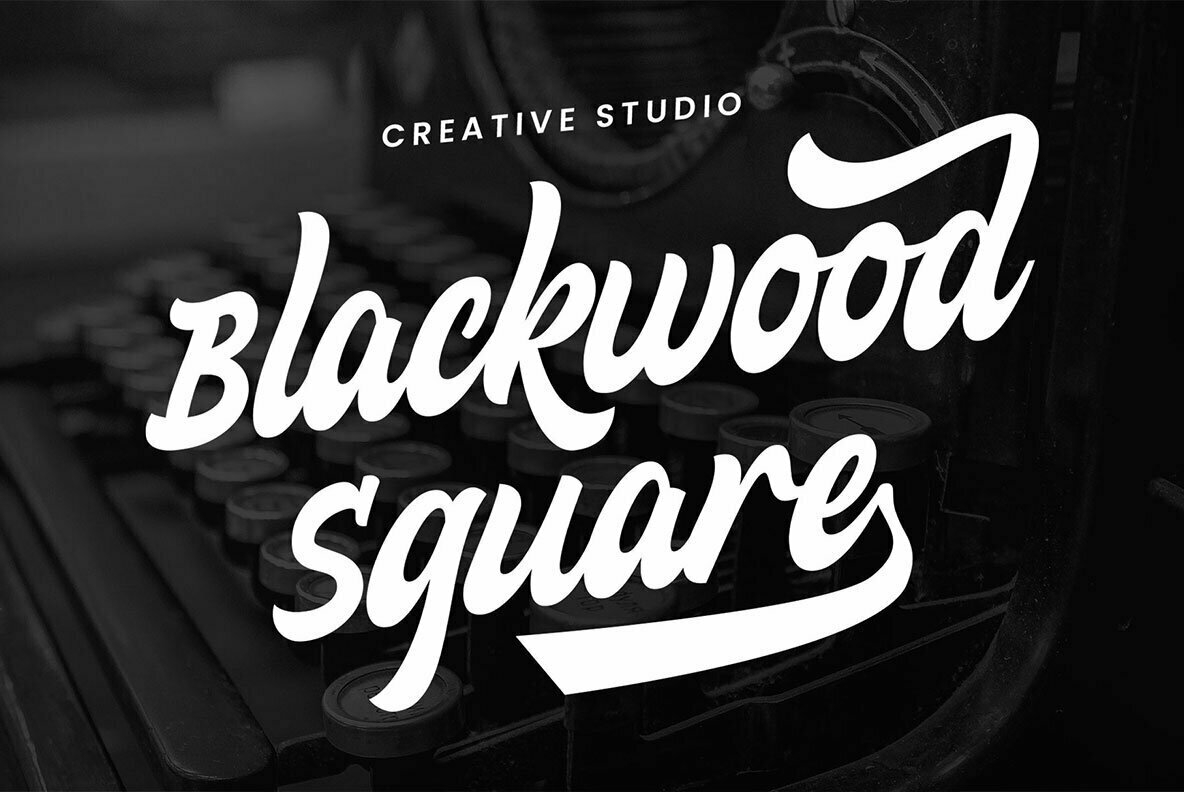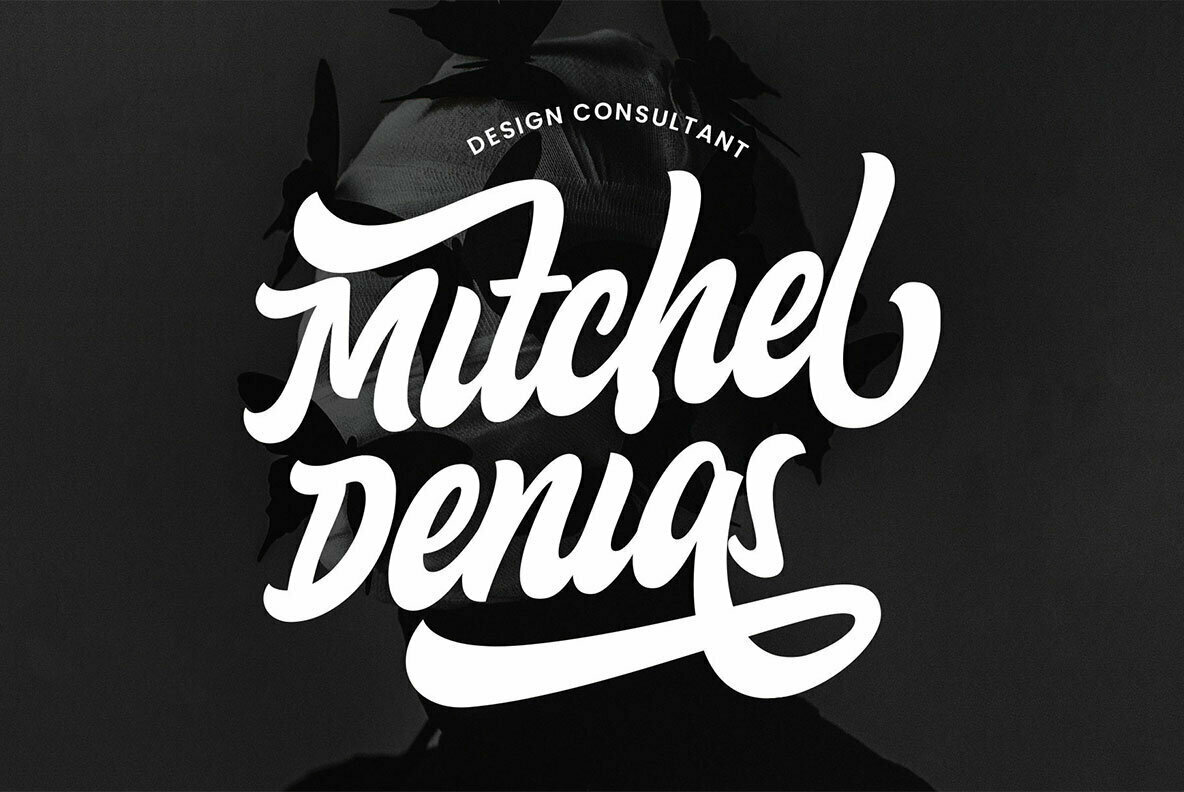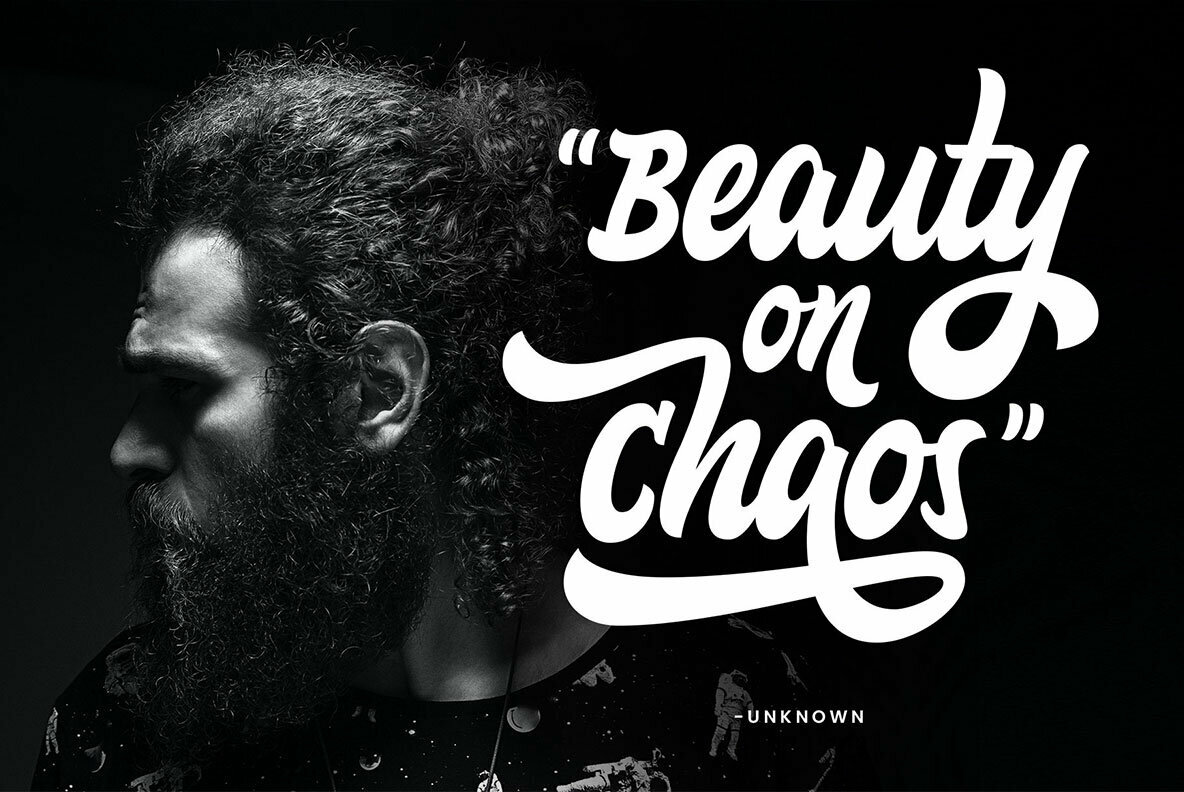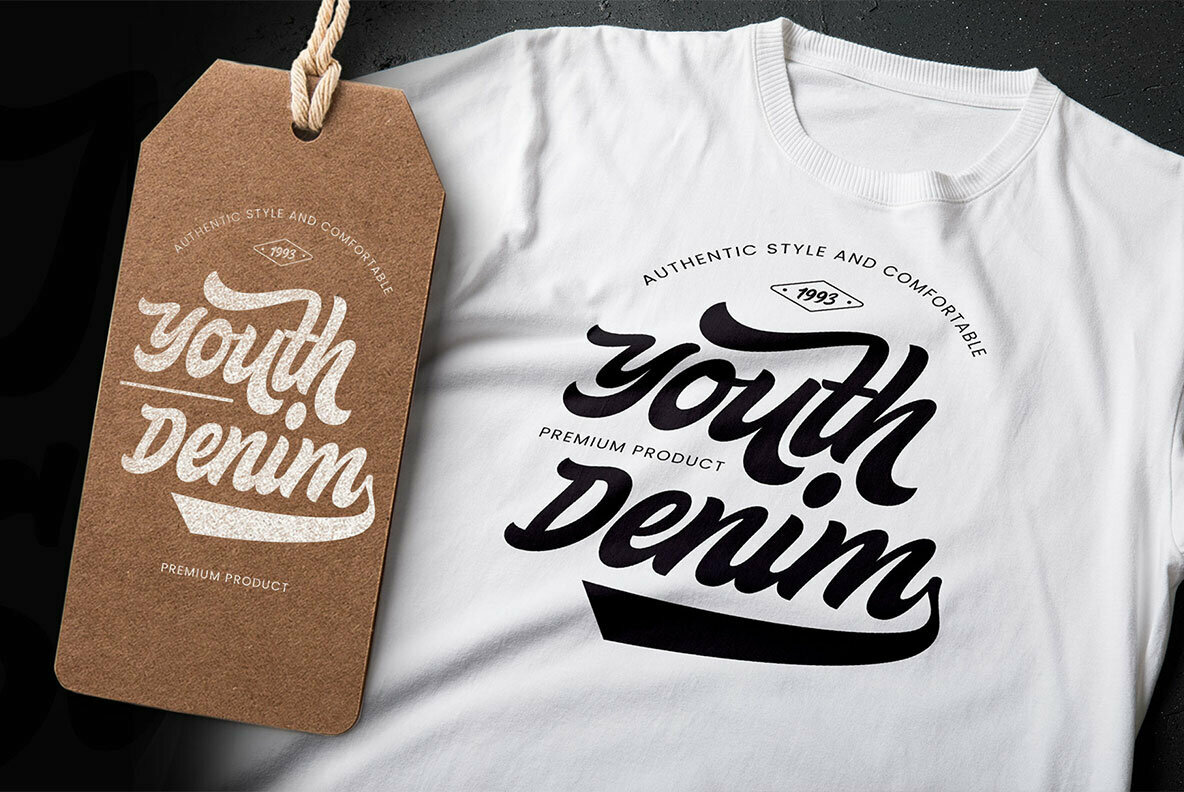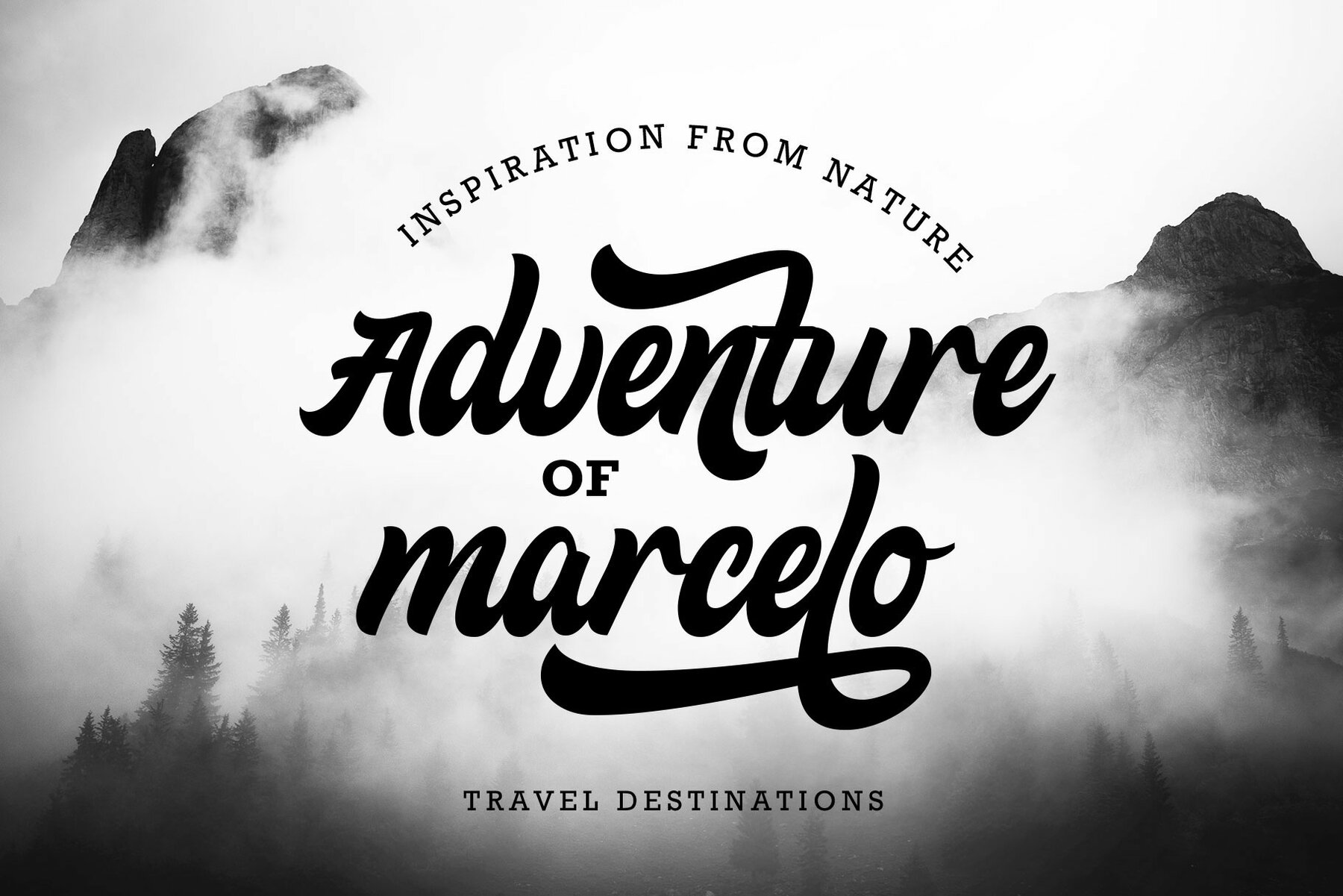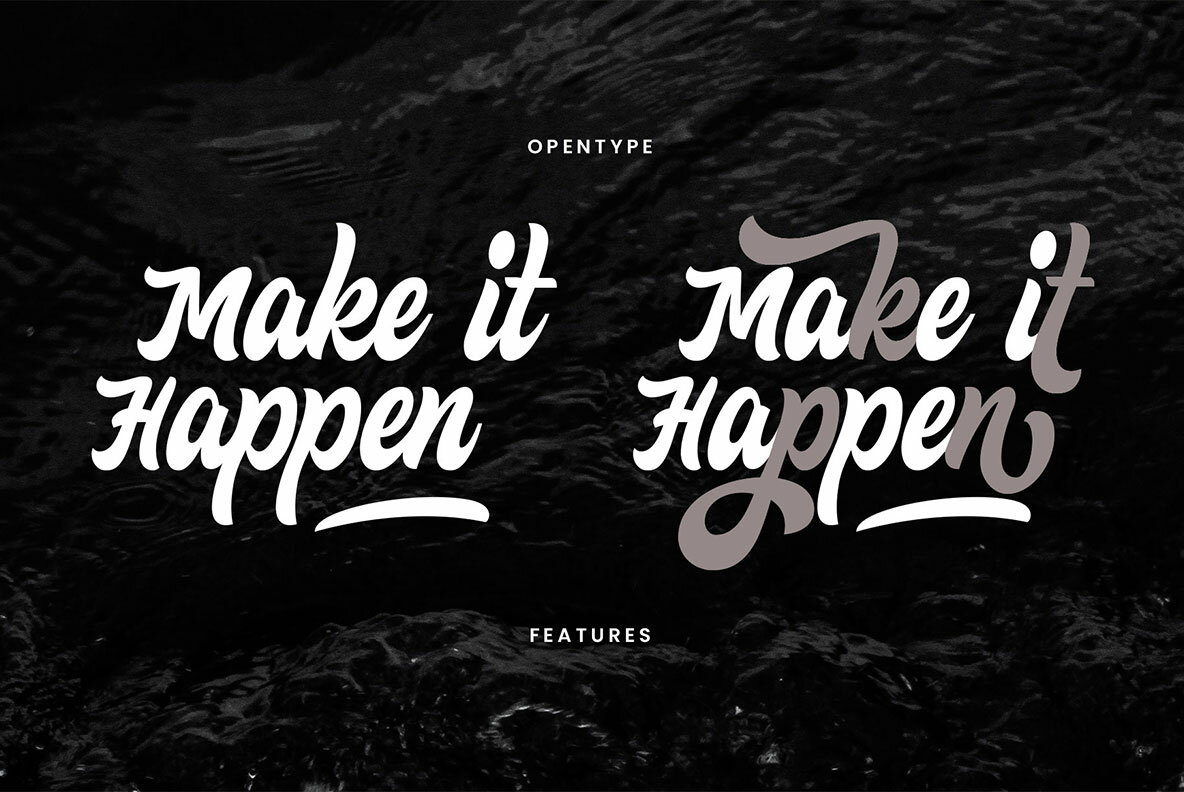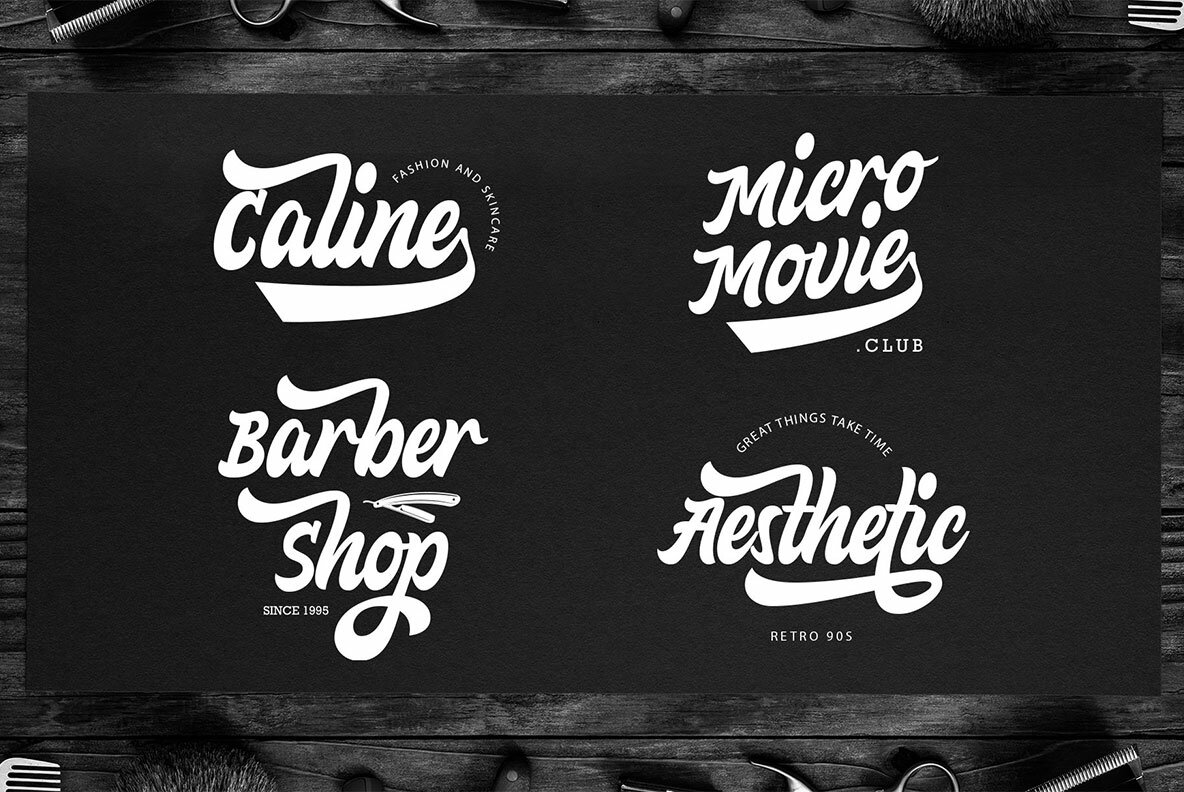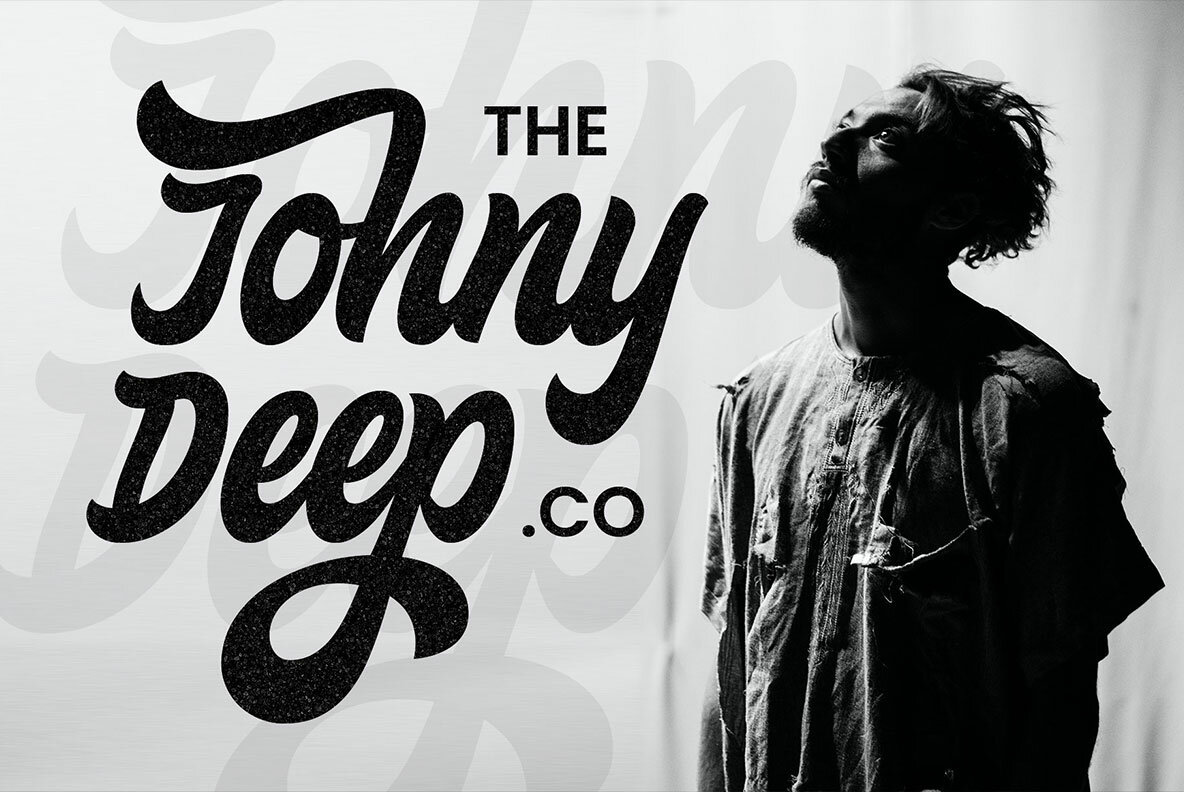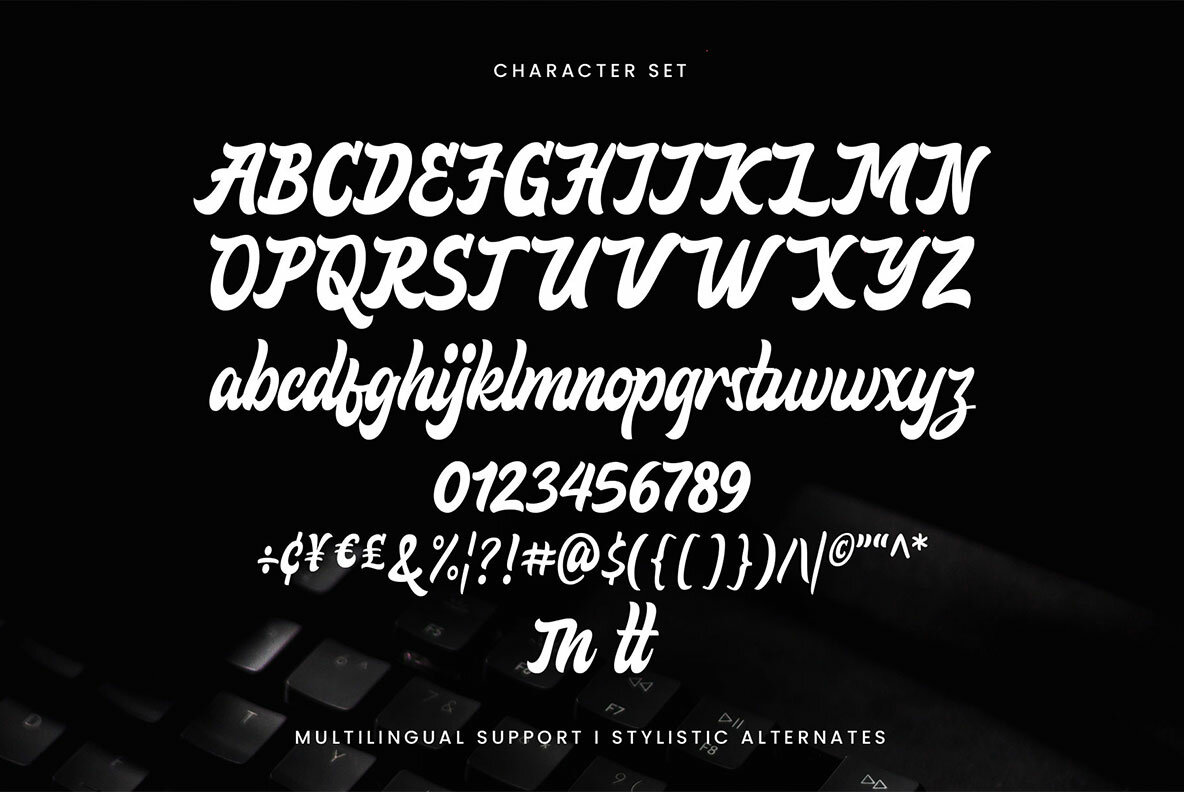
Vanitha Font
Vanitha Regular
Vanitha is a vintage font that can be used in logos and other design projects to give them an old-school feel. It has stylistic alternates so you're able use this typeface without having any limitations on what kind of project it's being thrown into!